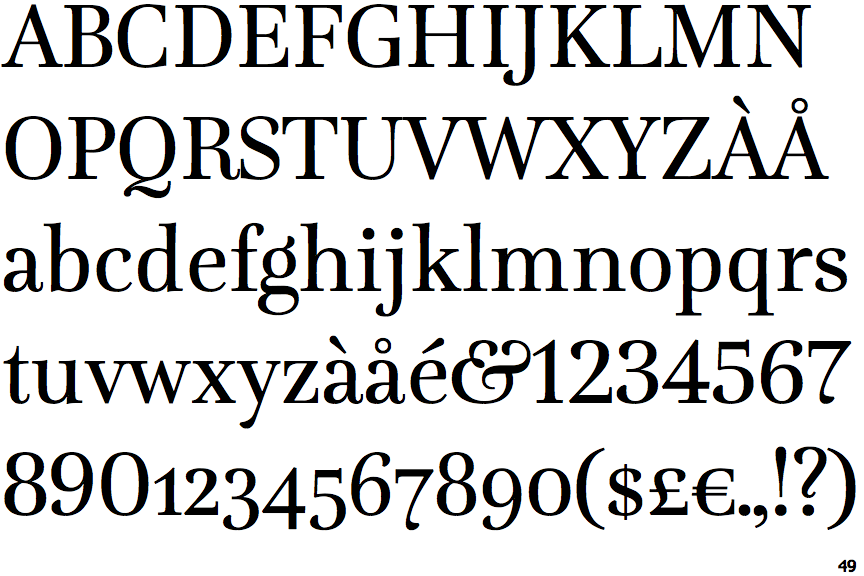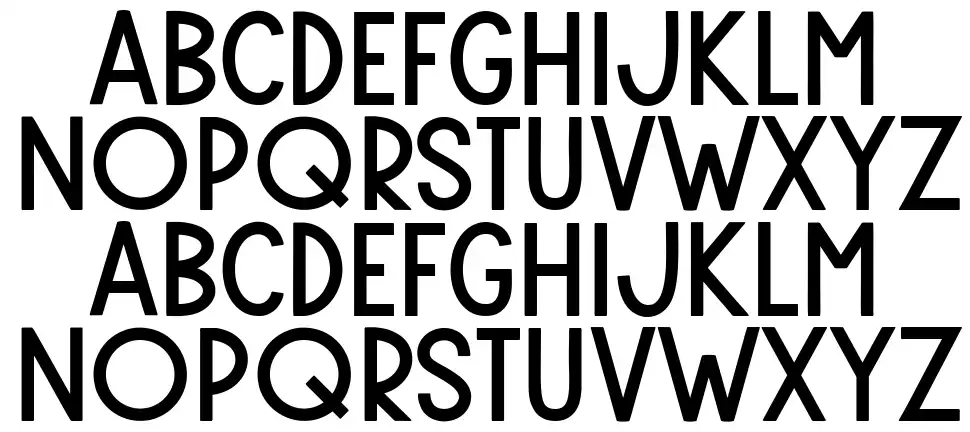
Lavigne Display Font Free Download . Web 'find my font' is an easy to use application for identifying fonts in digital images. Lavigne € by emylia maratta.
The font is available in all formats (lavigne woff2, lavigne woff, lavigne ttf, lavigne eot) and applicable. Lavigne € by emylia maratta. In basic > sans serif.
Lavigne free font
Lavigne Display Font Free Download - Web 'find my font' is an easy to use application for identifying fonts in digital images. Lavigne € by emylia maratta. The font is available in all formats (lavigne woff2, lavigne woff, lavigne ttf, lavigne eot) and applicable. In basic > sans serif. Lavigne font is free for both personel and commercial usages.
Lavigne Display Font Free Download - Lavigne € by emylia maratta. In basic > sans serif. Lavigne font is free for both personel and commercial usages. A serif typeface with 10 styles, available from adobe fonts for sync and web. The font is available in all formats (lavigne woff2, lavigne woff, lavigne ttf, lavigne eot) and applicable.
Lavigne Display Font Free Download - Web 'find my font' is an easy to use application for identifying fonts in digital images. The font is available in all formats (lavigne woff2, lavigne woff, lavigne ttf, lavigne eot) and applicable. In basic > sans serif. Lavigne € by emylia maratta. A serif typeface with 10 styles, available from adobe fonts for sync and web.
Lavigne Display Font Free Download - The font is available in all formats (lavigne woff2, lavigne woff, lavigne ttf, lavigne eot) and applicable. In basic > sans serif. Lavigne € by emylia maratta. Web explore lavigne designed by ramiro espinoza at adobe fonts. Lavigne font is free for both personel and commercial usages.
Lavigne Display Font Free Download - A serif typeface with 10 styles, available from adobe fonts for sync and web. Web explore lavigne designed by ramiro espinoza at adobe fonts. Lavigne € by emylia maratta. Lavigne font is free for both personel and commercial usages. In basic > sans serif.
Lavigne Display Font Free Download - Web 'find my font' is an easy to use application for identifying fonts in digital images. Lavigne € by emylia maratta. Web explore lavigne designed by ramiro espinoza at adobe fonts. Lavigne font is free for both personel and commercial usages. In basic > sans serif.
Lavigne Display Font Free Download - In basic > sans serif. Web explore lavigne designed by ramiro espinoza at adobe fonts. Web 'find my font' is an easy to use application for identifying fonts in digital images. The font is available in all formats (lavigne woff2, lavigne woff, lavigne ttf, lavigne eot) and applicable. Lavigne € by emylia maratta.
Lavigne Display Font Free Download - Lavigne font is free for both personel and commercial usages. A serif typeface with 10 styles, available from adobe fonts for sync and web. Web explore lavigne designed by ramiro espinoza at adobe fonts. In basic > sans serif. Lavigne € by emylia maratta.
Lavigne Display Font Free Download - The font is available in all formats (lavigne woff2, lavigne woff, lavigne ttf, lavigne eot) and applicable. Web 'find my font' is an easy to use application for identifying fonts in digital images. Web explore lavigne designed by ramiro espinoza at adobe fonts. Lavigne € by emylia maratta. Lavigne font is free for both personel and commercial usages.
Lavigne Display Font Free Download - Web explore lavigne designed by ramiro espinoza at adobe fonts. Lavigne € by emylia maratta. Web 'find my font' is an easy to use application for identifying fonts in digital images. The font is available in all formats (lavigne woff2, lavigne woff, lavigne ttf, lavigne eot) and applicable. A serif typeface with 10 styles, available from adobe fonts for sync.
Lavigne Display Font Free Download - Lavigne € by emylia maratta. Lavigne font is free for both personel and commercial usages. Web explore lavigne designed by ramiro espinoza at adobe fonts. The font is available in all formats (lavigne woff2, lavigne woff, lavigne ttf, lavigne eot) and applicable. A serif typeface with 10 styles, available from adobe fonts for sync and web.
Lavigne Display Font Free Download - Lavigne font is free for both personel and commercial usages. In basic > sans serif. Lavigne € by emylia maratta. Web explore lavigne designed by ramiro espinoza at adobe fonts. The font is available in all formats (lavigne woff2, lavigne woff, lavigne ttf, lavigne eot) and applicable.
Lavigne Display Font Free Download - Lavigne font is free for both personel and commercial usages. Web 'find my font' is an easy to use application for identifying fonts in digital images. Lavigne € by emylia maratta. In basic > sans serif. Web explore lavigne designed by ramiro espinoza at adobe fonts.
Lavigne Display Font Free Download - Lavigne € by emylia maratta. Lavigne font is free for both personel and commercial usages. In basic > sans serif. Web 'find my font' is an easy to use application for identifying fonts in digital images. The font is available in all formats (lavigne woff2, lavigne woff, lavigne ttf, lavigne eot) and applicable.